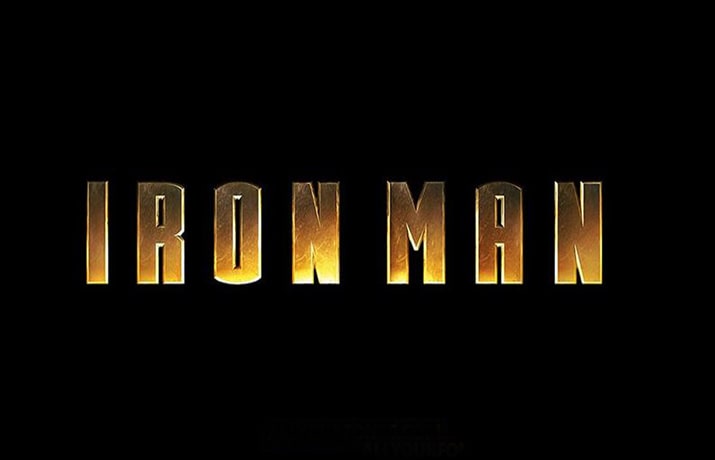
Introducing Iron Man Logo Font! Iron man is an American superhero movie series based on the Marvel Comics book. It was first shared in Sydney on 14 April 2008.
Almost all of us know about this movie and its advertisement posters are also displayed in every country. This is why many types of designers look not only at the poster but also at the fonts used for its title.
The font used in the logo is very similar to the Stark font. This font is classified in the sans serif font class and was designed by Pixel Sagas.